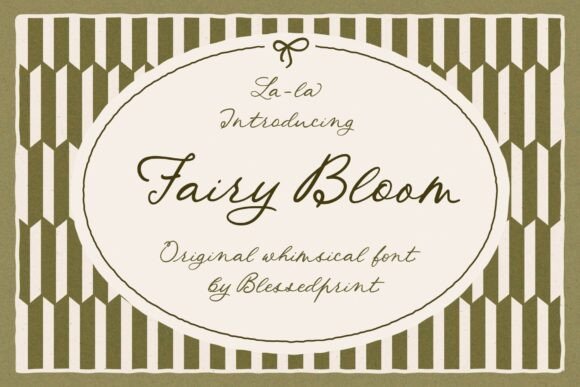
Fairy Bloom Font: A Whimsical and Romantic Handwritten Script
Fairy Bloom is a beautiful, handwritten script font that embodies the essence of romance and whimsy. With its airy flow and modern calligraphy charm, this font is perfect for designers looking to add a touch of elegance and playfulness to their creations. In this article, we’ll explore the features and benefits of Fairy Bloom, and how it can elevate your designs to new heights.
A Font with Personality and Versatility
Fairy Bloom is a font that exudes personality and versatility. Its unique blend of traditional and modern elements makes it an excellent choice for a wide range of design projects, from wedding invitations and signage to creative projects and branding materials. With Fairy Bloom, you can add a touch of magic to your designs and make them truly unforgettable.
Key Features of Fairy Bloom
Fairy Bloom comes with a range of features that make it a standout font. Some of its key features include:
- Two sets of uppercase letters: Fairy Bloom offers two sets of uppercase letters, giving you plenty of options for creative expression.
- Alternate lowercase endings: The font also includes alternate lowercase endings, allowing you to add a touch of elegance and sophistication to your designs.
- Elegant swashes: Fairy Bloom’s elegant swashes add a touch of drama and flair to your designs, making them perfect for titles, headings, and other display text.
- Charming ligatures: The font’s charming ligatures add a touch of whimsy and playfulness to your designs, making them perfect for creative projects and branding materials.
Perfect for Wedding Invitations and Signage
Fairy Bloom is a perfect choice for wedding invitations and signage. Its romantic and whimsical feel makes it ideal for couples looking to add a touch of elegance and playfulness to their wedding stationery. With Fairy Bloom, you can create beautiful and unique wedding invitations, save-the-date cards, and signage that will set the tone for your special day.
Here are some ways you can use Fairy Bloom for your wedding stationery:
- Wedding invitations: Use Fairy Bloom to create beautiful and elegant wedding invitations that will set the tone for your special day.
- Save-the-date cards: Add a touch of whimsy and romance to your save-the-date cards with Fairy Bloom.
- Wedding signage: Use Fairy Bloom to create stunning wedding signage, including welcome signs, directional signs, and more.
Ideal for Creative Projects and Branding Materials
Fairy Bloom is not just limited to wedding stationery. Its versatility and playfulness make it an excellent choice for creative projects and branding materials. Here are some ways you can use Fairy Bloom for your creative projects:
- Logos and branding: Use Fairy Bloom to create a unique and memorable logo for your brand.
- Social media graphics: Add a touch of whimsy and playfulness to your social media graphics with Fairy Bloom.
- Packaging design: Use Fairy Bloom to create beautiful and eye-catching packaging design for your products.
Why Choose Fairy Bloom?
So why choose Fairy Bloom over other fonts? Here are some reasons why Fairy Bloom stands out:
- Unique and elegant: Fairy Bloom is a unique and elegant font that will add a touch of sophistication to your designs.
- Versatile: The font is versatile and can be used for a wide range of design projects.
- Easy to read: Fairy Bloom is easy to read, making it perfect for body text and other long-form content.
- High-quality: The font is high-quality and comes with a range of features, including two sets of uppercase letters, alternate lowercase endings, elegant swashes, and charming ligatures.
In conclusion, Fairy Bloom is a beautiful and versatile handwritten script font that is perfect for designers looking to add a touch of romance and whimsy to their creations. With its unique blend of traditional and modern elements, Fairy Bloom is an excellent choice for a wide range of design projects, from wedding invitations and signage to creative projects and branding materials. Its key features, including two sets of uppercase letters, alternate lowercase endings, elegant swashes, and charming ligatures, make it a standout font that will elevate your designs to new heights.
Here are some frequently asked questions about Fairy Bloom:
- What is Fairy Bloom?: Fairy Bloom is a romantic handwritten script font with a whimsical, airy flow and modern calligraphy charm.
- What are the key features of Fairy Bloom?: Fairy Bloom comes with two sets of uppercase letters, alternate lowercase endings, elegant swashes, and charming ligatures.
- What can I use Fairy Bloom for?: Fairy Bloom is perfect for wedding invitations, signage, creative projects, and branding materials.
- Is Fairy Bloom easy to read?: Yes, Fairy Bloom is easy to read, making it perfect for body text and other long-form content.